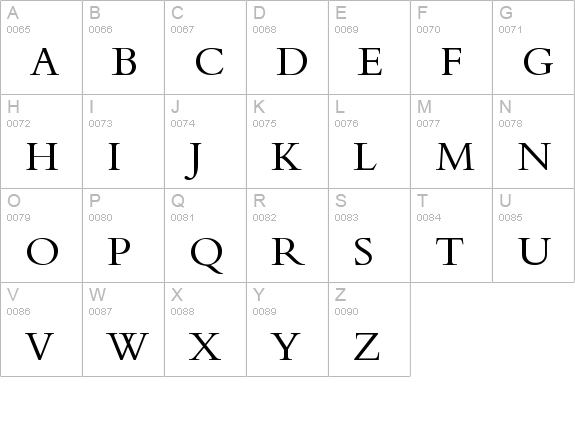
Bergamo Std is a timeless and elegant serif font that exudes sophistication and charm. With its classic letterforms and clean lines, Bergamo Std is the perfect choice for projects that require a touch of refinement and class. This versatile font is ideal for creating stylish headlines, posters, invitations, and more. What makes Bergamo Std even more appealing is that it is available for free download at FontsMarket.com. That's right - you can elevate your designs with this beautiful font without spending a dime. So why wait? Download Bergamo Std today and add a touch of elegance to your projects.